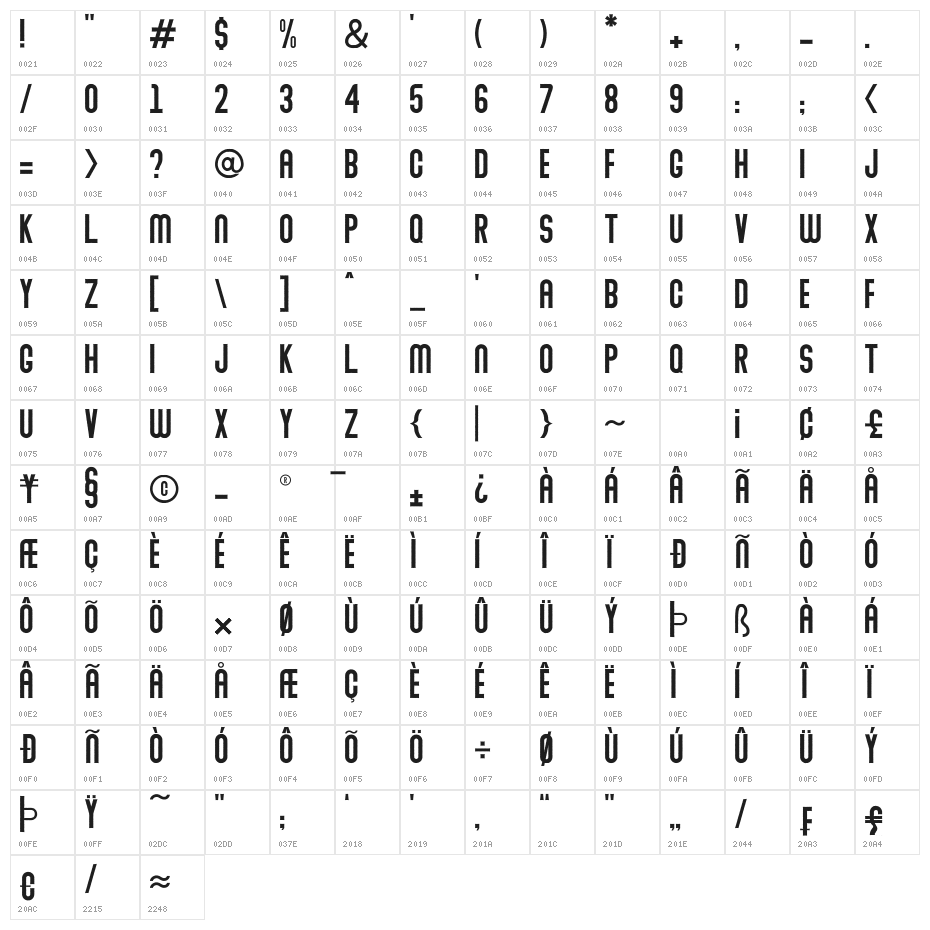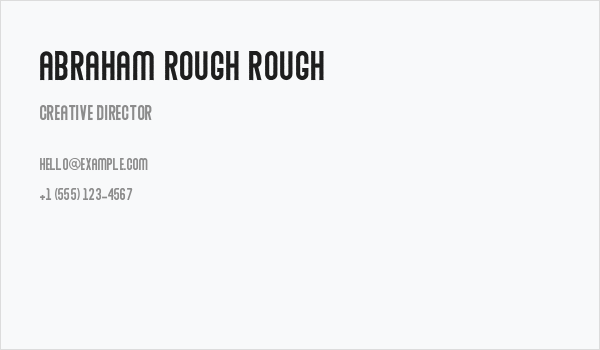
Abraham Rough Rough Font
Abraham Rough Rough Description
This font features a bold and rugged design with a distinctly rough texture that gives it a vintage and industrial feel. The characters are tall and narrow, contributing to a condensed appearance that is both striking and legible. The uppercase letters dominate the design, with a consistent height and uniform stroke width that enhances readability. The numerals and special characters maintain the same rough texture, ensuring a cohesive look across all elements. The font's unique texture and boldness make it ideal for projects that require a strong visual impact.
Overall StyleVintage
Proposed ProjectsIdeal for posters, branding, packaging, and any design requiring a strong, vintage aesthetic.